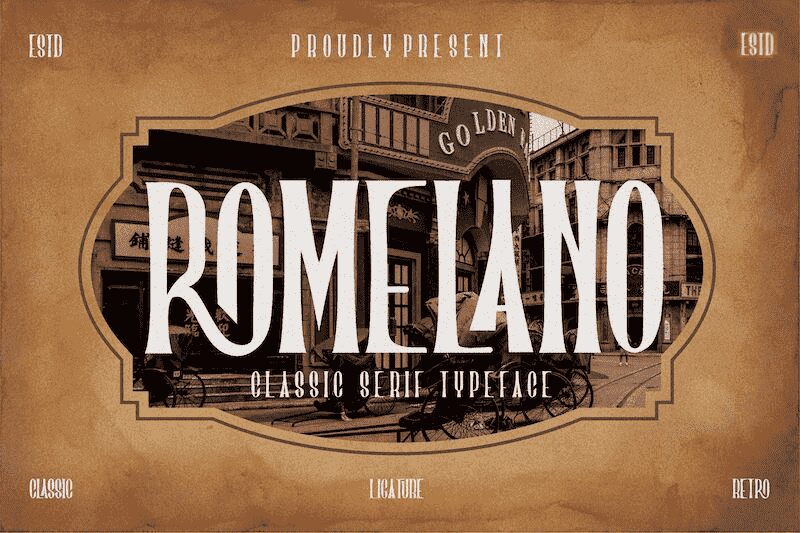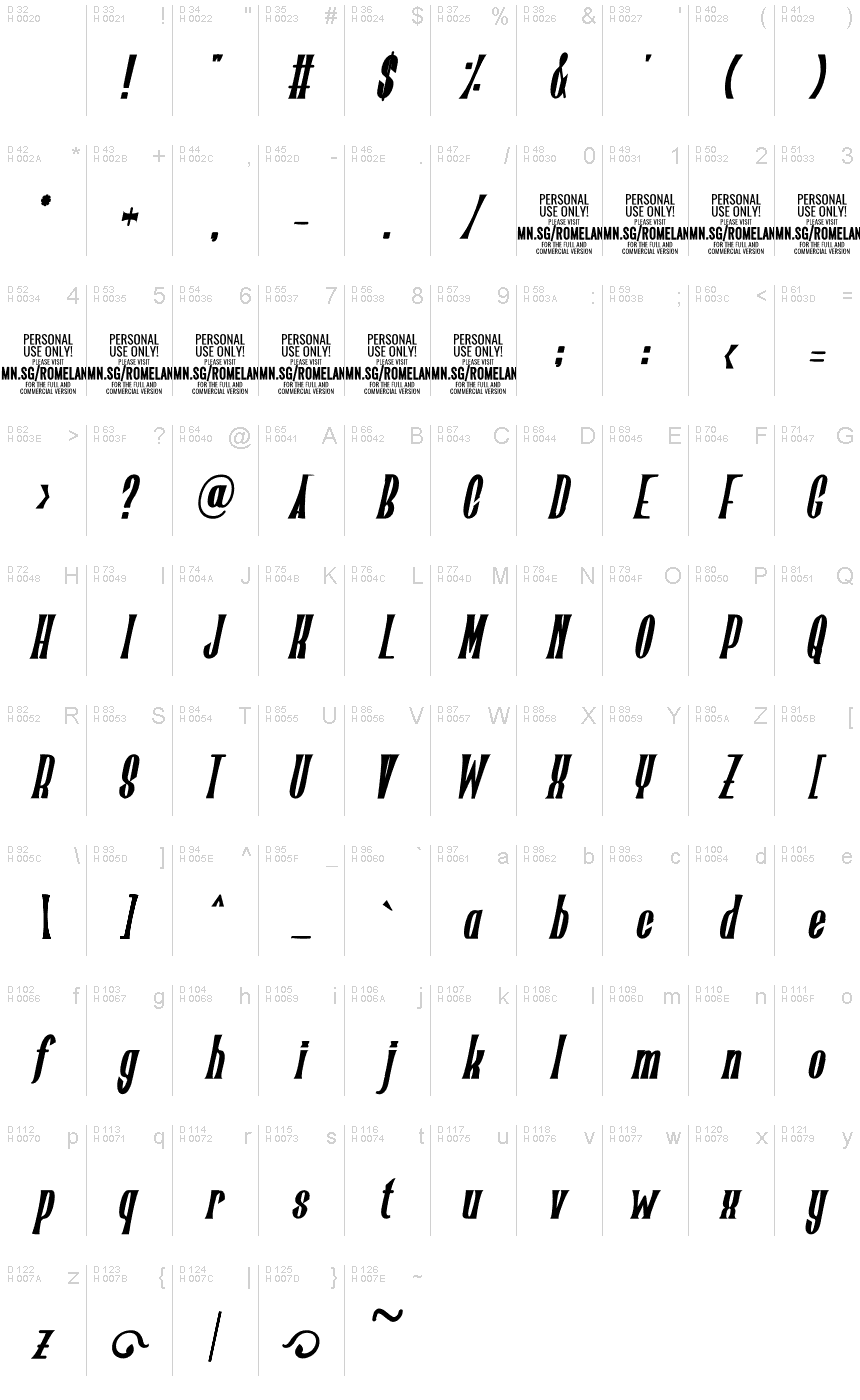
Romelano Bold Italic PERSONAL USE Bold Italic
Romelano Bold Italic, a captivating display font from the renowned designer Mans Greback, exudes an irresistible retro charm. With its semi-bold weight and extra-condensed width, this font adds a touch of boldness and elegance to any design project. Perfect for creating eye-catching headlines, logos, or posters with a vintage twist. Its unique style makes it ideal for branding campaigns seeking to evoke nostalgia or add a retro vibe. Whether you're designing for fashion, music, or lifestyle brands, Romelano Bold Italic is your go-to choice for making a lasting impression.
Use characters { } to make decorative elements.
Example: {Beautiful}